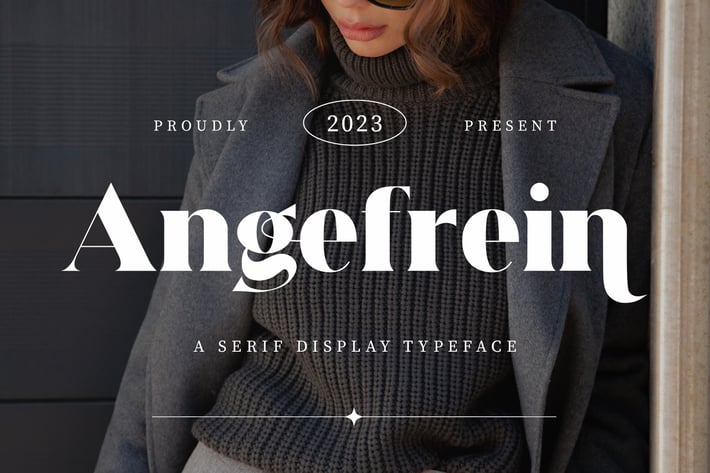
Angelfrein - A Serif Display Typeface
Introducing "Angelfrein" - a serif display typeface that combines elegance with bold presence, perfect for making a sophisticated statement in your designs.
With its refined and distinctive letterforms, "Angelfrein" adds a touch of classic beauty to any project. Each character is meticulously crafted to strike the perfect balance between timeless elegance and modern appeal, making it ideal for luxurious branding, eye-catching headlines, editorial layouts, and more.
Embrace the commanding presence of "Angelfrein" as it effortlessly enhances your designs. Whether you're creating prestigious logos, captivating posters, editorial masterpieces, or elegant social media graphics, this font will captivate your audience with its serif and display style.
Step into a world of refined typography with "Angelfrein" and let your designs speak with grace and authority.
– Lowercase
– Ligature
– Alternate